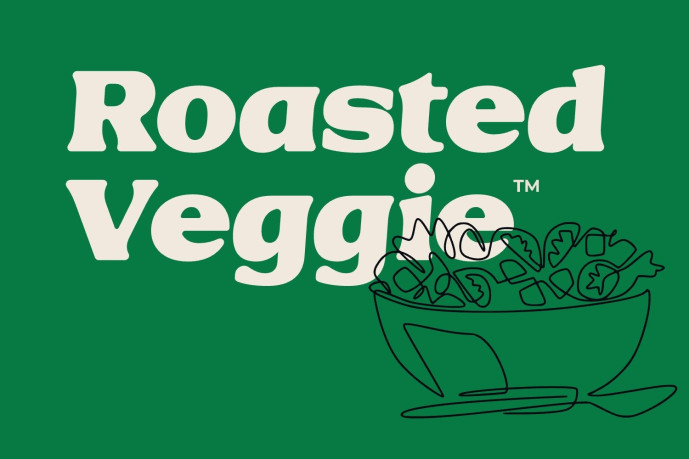
Roasted Veggie – Food Font
Roasted Veggie – Food Font is a friendly and organic display font that brings natural warmth to any food, café, or restaurant branding. Its smooth, rounded shapes give a sense of comfort and freshness—perfect for vegetarian menus, coffee packaging, or kitchen product labels that want to feel handmade and honest.
From bakery identities to cooking blogs, ROASTED VEGGIE blends simplicity with flavor. It’s a great match for pizza, burger, or ice cream brands that value natural taste and sustainability—turning every logo or menu into a delicious design statement.
Designed for elegance, crafted for timeless branding.